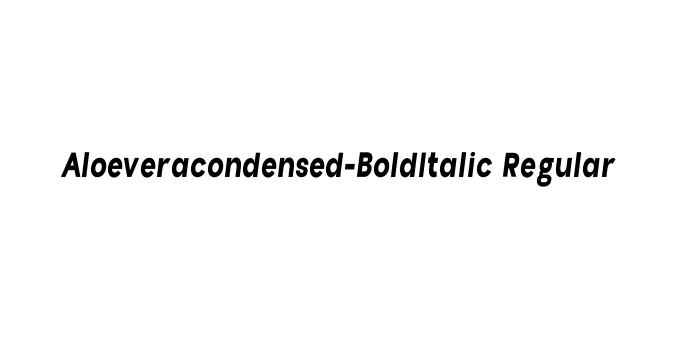
Aloeveracondensed-BoldItalic Regular
Designed by Creatype Studio
| Category | Sans Serif / Display |
| Designer | Creatype Studio |
| Similar Fonts | Bebas Neue, Futura Condensed, Impact, Montserrat Condensed Italic |
Aloeveracondensed-BoldItalic Regular is a sophisticated display typeface that blends organic inspiration with modern, sleek structural elements. Designed to maximize impact in restricted spaces, this font features a highly condensed profile characterized by smooth curves and sharp terminals. The bold weight paired with its dynamic italic slant provides a sense of speed and elegance, making it an excellent choice for contemporary designers looking to add a touch of personality to minimalist layouts.
Historically, the Aloevera font family was developed to bridge the gap between high-fashion editorial aesthetics and commercial accessibility. Its condensed nature allows for larger point sizes in narrow headers without sacrificing legibility. This specific Bold Italic variant is particularly effective for emphasizing motion and urgency, often utilized in luxury branding, beauty product packaging, and high-impact digital advertisements that require a distinct, modern voice.
Aloeveracondensed-BoldItalic Regular Best Uses
Ideal for creating modern, organic, and memorable brand identities.
Perfect for skincare, beauty, or luxury product labels with limited space.
Excellent for high-impact titles in magazine layouts and web banners.
Great for dynamic and eye-catching Instagram or Pinterest quote graphics.